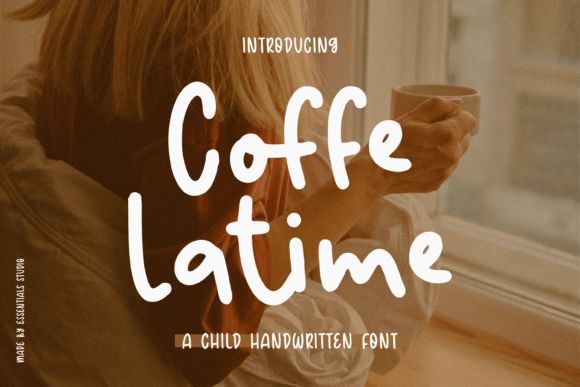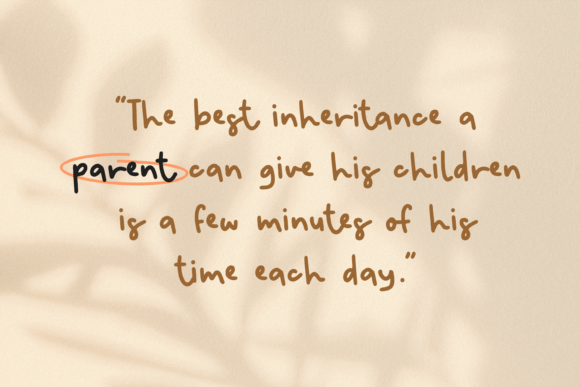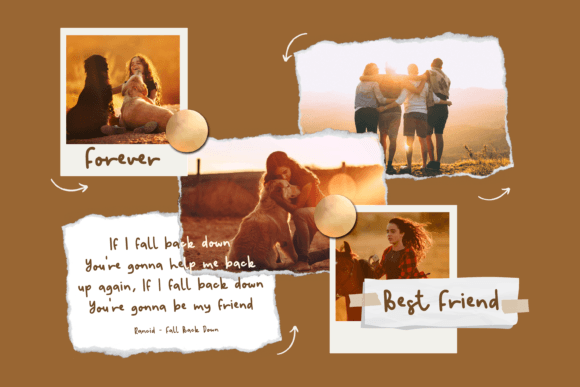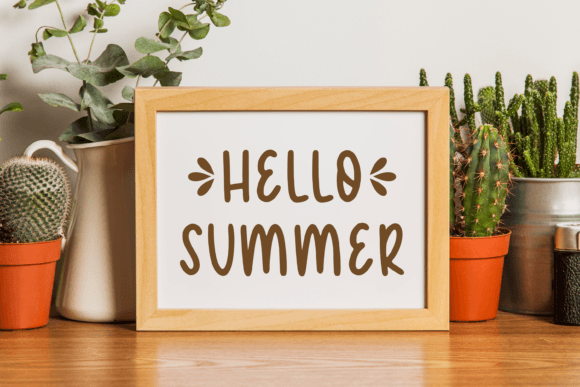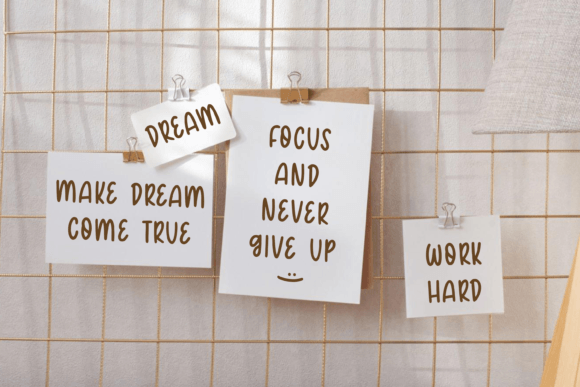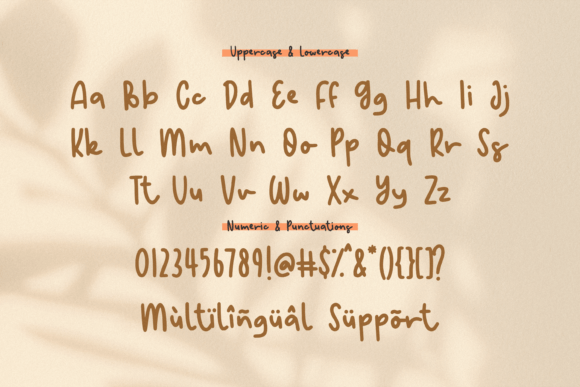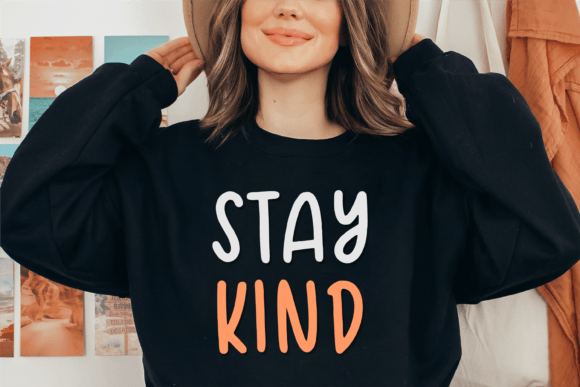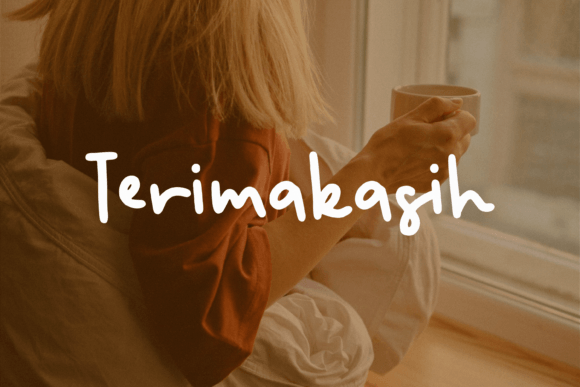
Coffe Latime Font
Discover Coffe Latime Font
Coffe Latime is a cute and charming handwritten font designed to bring a warm and personal feel to any project. Its gentle curves and balanced letters create a friendly and approachable look that’s perfect for modern creatives.
Where Can You Use Coffe Latime?
Thanks to its versatile design, Coffe Latime works beautifully in a wide range of applications, such as:
✅ Product Packaging: Make your labels stand out on coffee bags, bakery boxes, skincare bottles, or handmade goods.
✅ Branding Projects: Add a personal touch to logos, business cards, or thank you notes.
✅ Magazines and Editorials: Use Coffe Latime for stylish headlines and pull quotes.
✅ Social Media Graphics: Perfect for Instagram posts, Pinterest pins, and Facebook banners that need an authentic vibe.
✅ Wedding Stationery: Create romantic invitations, menus, and signage with a handwritten flair.
✅ Greeting Cards and Quotes: Great for cards, prints, or framed artwork that needs a warm, heartfelt style.
What Makes Coffe Latime Special?
Coffe Latime was carefully crafted to balance legibility with character. Here’s why you’ll love working with it:
✨ Soft, Smooth Strokes: The rounded letterforms and flowing connections create a natural handwritten feel.
✨ Cute and Approachable Style: Perfect for brands and projects targeting a friendly, lifestyle-oriented audience.
✨ PUA Encoded: Access all the special characters, swashes, and ligatures easily without needing extra design software.
✨ Flexible for Digital and Print: Whether you’re designing web banners or printed packaging, this font keeps your designs looking sharp.
How Does Coffe Latime Enhance Your Designs?
When you use Coffe Latime, you instantly add authenticity and personality to your work. This font helps brands feel approachable, products look more inviting, and messages feel more personal.
It’s especially suited for businesses that want to connect emotionally with their audience—like artisan coffee roasters, bakeries, florists, and boutique shops.
If you’re looking for a cute handwritten font that effortlessly blends style and friendliness, Coffe Latime is the perfect choice. It’s easy to use, beautifully designed, and highly versatile, making it a valuable addition to your font collection.